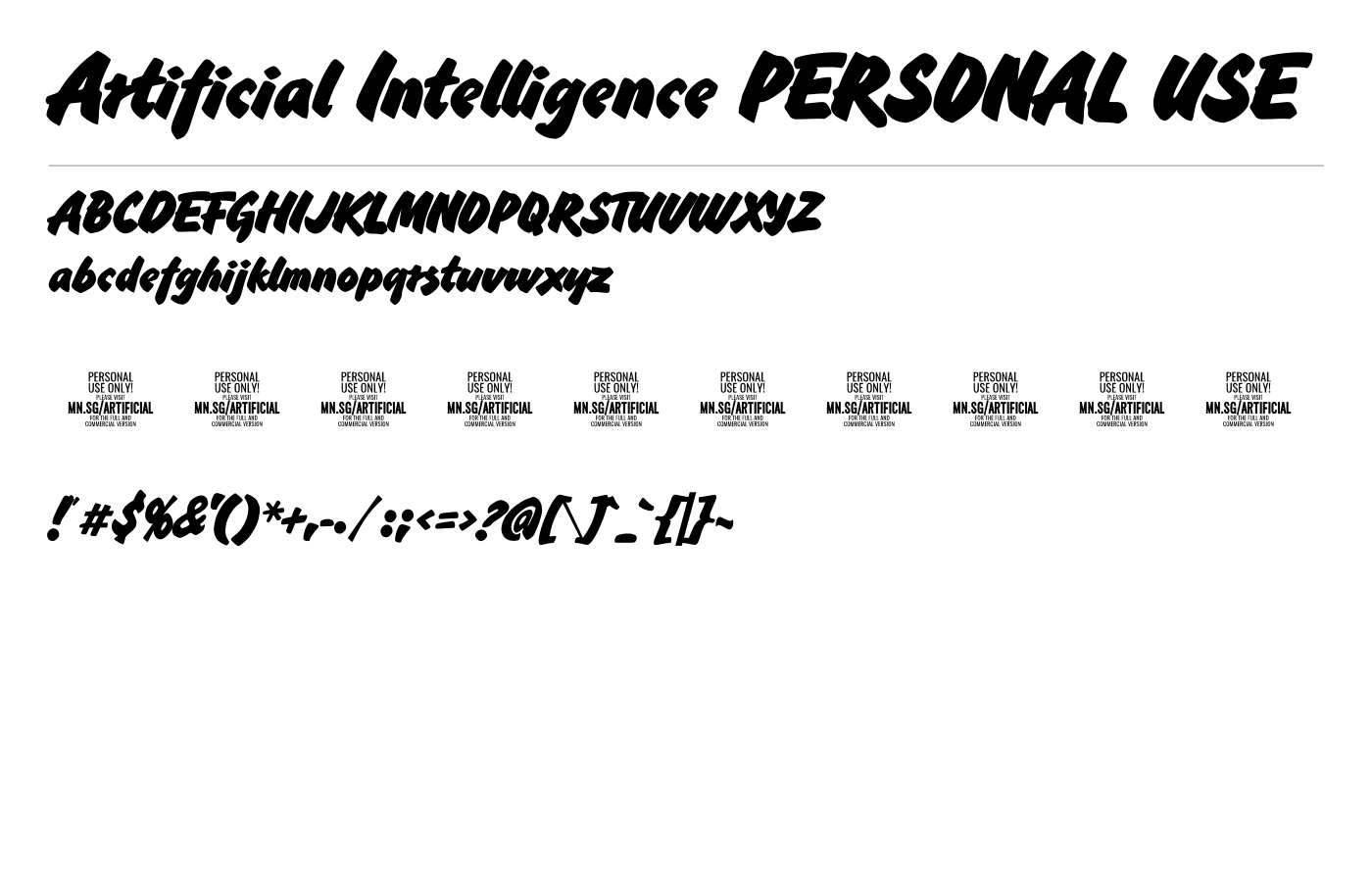
Artificial Intelligence PERSONAL USE is a bold, energetic script font with a strong hand-drawn feel, featuring smooth, slightly slanted strokes and lively letterforms that convey creativity and informality. Its thick weight and casual style make it ideal for eye-catching headlines, logos, or playful branding where personality and impact are key. This font works best in designs that seek a friendly, dynamic vibe rather than formal or highly structured presentation.
Artificial Intelligence PERSONAL USE Font
About Artificial Intelligence PERSONAL USE Font